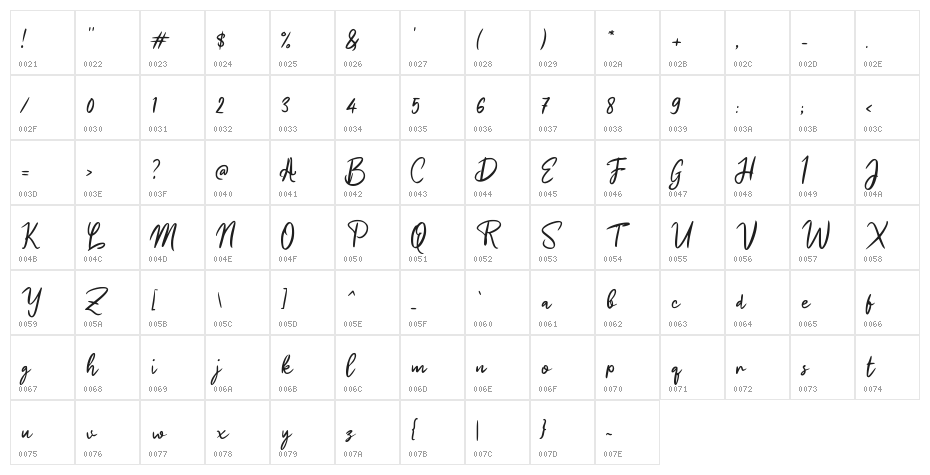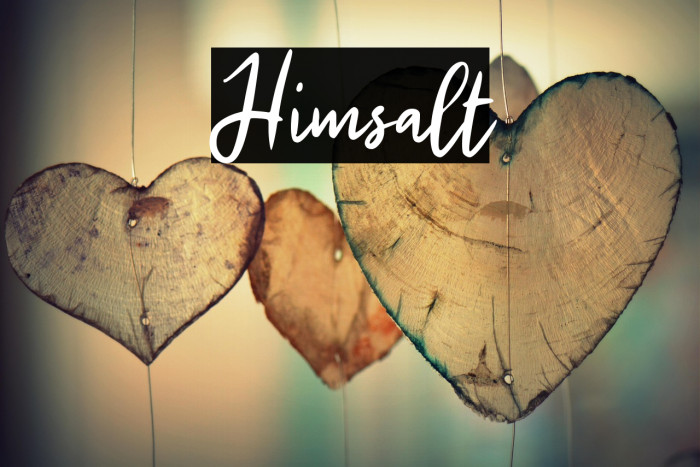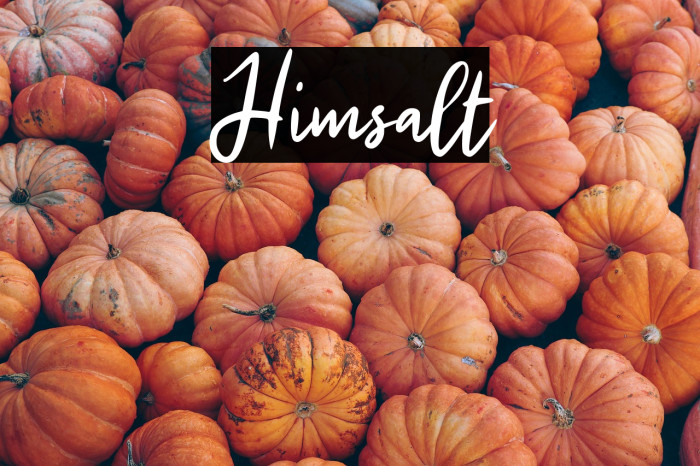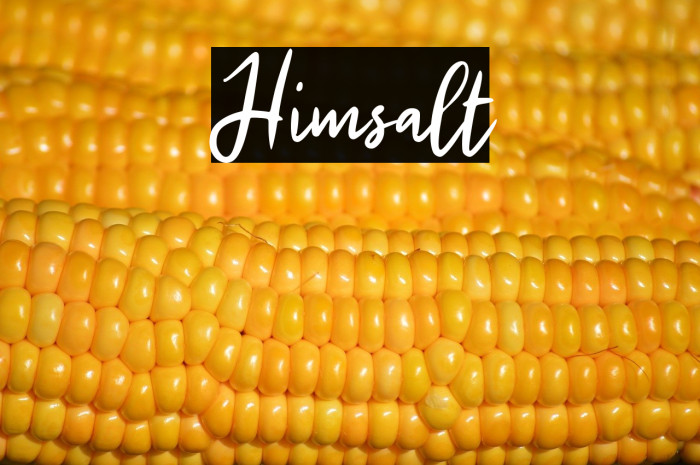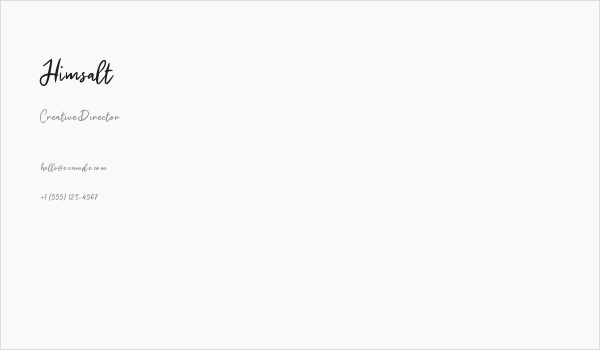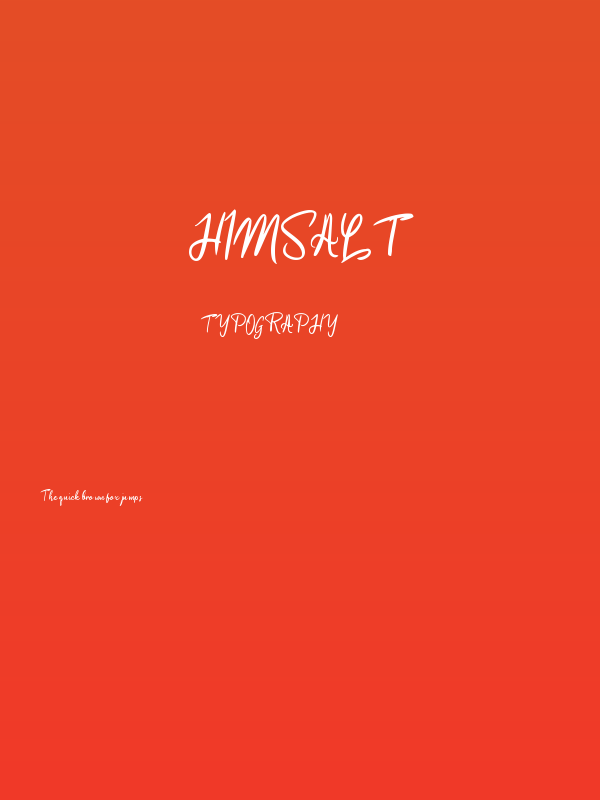
Himsalt Font
Himsalt Description
A flowing, cursive script font with a handwritten appearance, featuring smooth, connected strokes and moderate contrast between thick and thin lines. The characters are slightly slanted, with generous loops and flourishes, giving it an elegant yet casual feel.
| Overall Style | Decorative, Handwritten, Elegant |
| Use Case | Logos, Invitations, Headlines, Social media graphics |
| Proposed Projects | Wedding invitations, greeting cards, personal branding, social media graphics, boutique logos. |